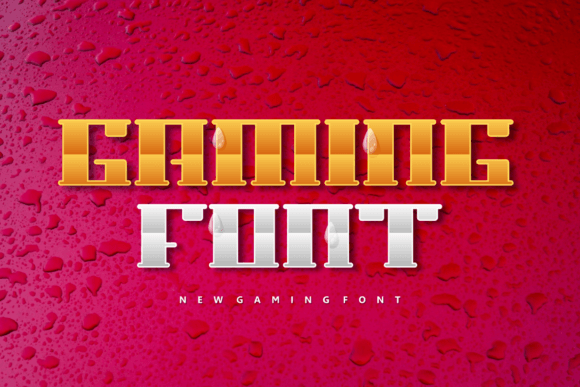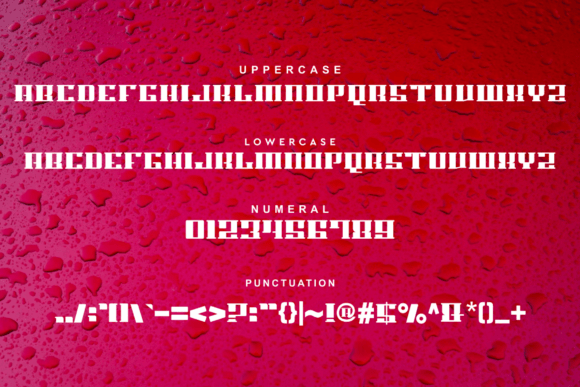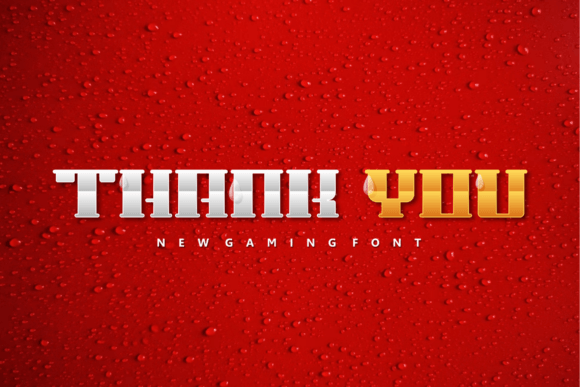
Frog Gaming Font: The Ultimate Game-Changer for Designers and Crafters
Frog Gaming is a cool and incredibly interesting display font that can elevate your design projects to the next level. Add it confidently to your projects and you will be astounded by the outcome generated! In this article, we’ll dive into the world of Frog Gaming Font, exploring its features, benefits, and uses, as well as provide tips and inspiration for designers and crafters looking to make the most of this amazing font.
The Story Behind Frog Gaming Font
Frog Gaming Font is a unique and stylish display font designed to capture the essence of gaming and fun. Its creators aimed to craft a font that would stand out from the crowd, with a quirky and playful vibe that’s perfect for projects that require a bit of personality. Whether you’re working on a logo, a poster, or a digital project, Frog Gaming Font is sure to make a statement.
Key Features of Frog Gaming Font
- Unique and quirky design: Frog Gaming Font boasts a one-of-a-kind design that’s sure to grab attention. Its irregular shapes and bold lines make it perfect for creating eye-catching headlines and titles.
- Highly legible: Despite its unconventional design, Frog Gaming Font is highly legible, even at smaller sizes. This makes it versatile for use in a variety of projects, from posters to digital screens.
- Extensive character set: Frog Gaming Font comes with an extensive character set, including uppercase and lowercase letters, numbers, and special characters. This ensures that you have everything you need to create stunning text-based designs.
- Customizable: Frog Gaming Font is highly customizable, allowing you to adjust the font size, color, and style to suit your project’s needs.
Benefits of Using Frog Gaming Font
So, why should you choose Frog Gaming Font for your projects? Here are just a few benefits of using this amazing font:
- Adds personality to your designs: Frog Gaming Font is the perfect way to add a bit of personality to your designs. Its quirky and playful vibe can help your projects stand out from the crowd and leave a lasting impression.
- Perfect for gaming and entertainment projects: As its name suggests, Frog Gaming Font is perfect for gaming and entertainment projects, such as logos, posters, and social media graphics.
- Great for headlines and titles: Frog Gaming Font is ideal for creating eye-catching headlines and titles that grab attention and draw the reader in.
Inspiration and Ideas for Using Frog Gaming Font
Now that we’ve explored the features and benefits of Frog Gaming Font, let’s take a look at some inspiration and ideas for using this amazing font:
- Create a gaming logo: Use Frog Gaming Font to create a unique and memorable logo for your gaming brand or project.
- Design a poster: Frog Gaming Font is perfect for creating eye-catching posters for gaming events, tournaments, or promotions.
- Make a social media graphic: Use Frog Gaming Font to create engaging social media graphics that showcase your gaming personality or brand.
- Develop a brand identity: Frog Gaming Font can be used to create a consistent brand identity across various platforms, including business cards, letterheads, and website headers.
Tips for Getting the Most Out of Frog Gaming Font
To get the most out of Frog Gaming Font, here are a few tips to keep in mind:
- Experiment with different sizes and colors: Don’t be afraid to experiment with different font sizes and colors to find the perfect combination for your project.
- Pair it with other fonts: Frog Gaming Font can be paired with other fonts to create a unique and visually appealing design.
- Use it consistently: Use Frog Gaming Font consistently across your project or brand to create a cohesive and recognizable identity.
In conclusion, Frog Gaming Font is a cool and incredibly interesting display font that’s perfect for designers and crafters looking to add a bit of personality to their projects. With its unique design, high legibility, and extensive character set, Frog Gaming Font is sure to make a statement in any project. So why not give it a try and see the amazing results for yourself?